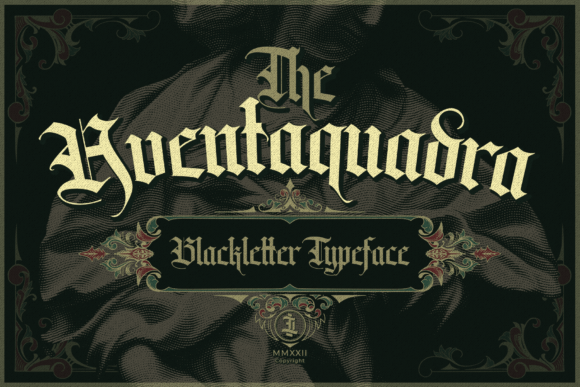
The Aventaquadra Font: A Bold and Beautiful Blackletter
I’ll never forget the design project that led me to discover the Aventaquadra font. I was working on a branding project for a craft liquor company, and my client specifically asked for a font that would evoke a sense of luxury and tradition. I scoured the internet for the perfect font, but nothing seemed quite right. That was until I stumbled upon Aventaquadra. Its unique blend of classic blackletter elements and modern simplicity immediately caught my eye.
So, what do I love about Aventaquadra? Here are a few things:
- ✨ Unique yet legible: Aventaquadra has a distinctive blackletter style that’s still surprisingly readable, even in smaller sizes.
- ✅ Versatile: This font is perfect for a wide range of design projects, from tattoos to liquor labels, and even luxury packaging.
- 💯 Clean and simple: Unlike some other blackletter fonts, Aventaquadra doesn’t have a lot of extraneous ornamentation, making it easy to use in a variety of contexts.
Of course, no font is perfect, and Aventaquadra does have a few quirks:
- 🤔 Legibility can be an issue: As with any blackletter font, legibility can be a challenge, especially for readers who are used to more traditional typography.
- ⚠️ Limited use cases: While Aventaquadra is incredibly versatile, it’s not the best choice for every project. For example, it may not be the best fit for body text or very small font sizes.
- Take advantage of OpenType features, such as glyphs and stylistic alternates, to add more depth and interest to your design.
While the true origins of Aventaquadra are unclear, it’s easy to imagine that the designer was inspired by traditional European blackletter fonts. Perhaps they wanted to create a font that was both elegant and bold, with a unique twist on classic typography. Whatever the inspiration, Aventaquadra is a true gem in the world of typography.
| Font Name | Aventaquadra Font |
| Author | ilhamtaro |
| Is Aventaquadra suitable for body text? | No, Aventaquadra is best used for headlines, titles, and short paragraphs. Its legibility can be an issue for longer blocks of text. |
| Is Aventaquadra available in different weights or styles? | Currently, Aventaquadra is available in a single weight, but its simplicity and elegance make it a versatile choice for many design projects. |